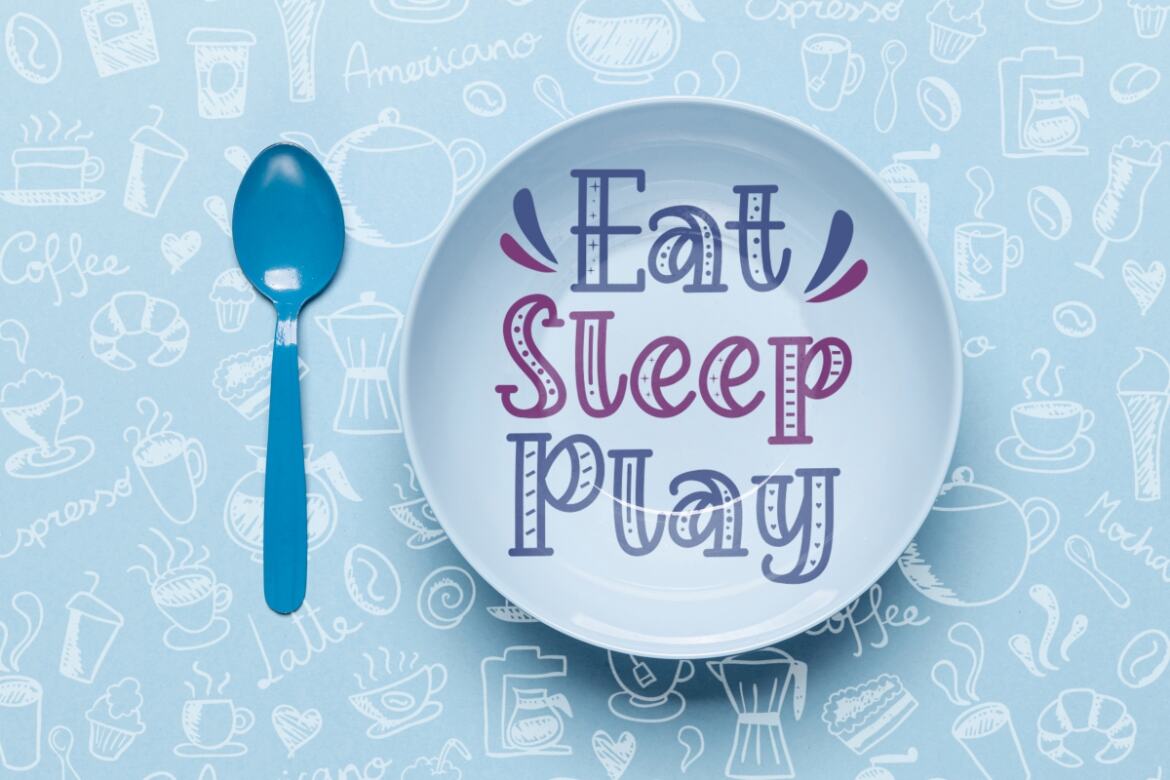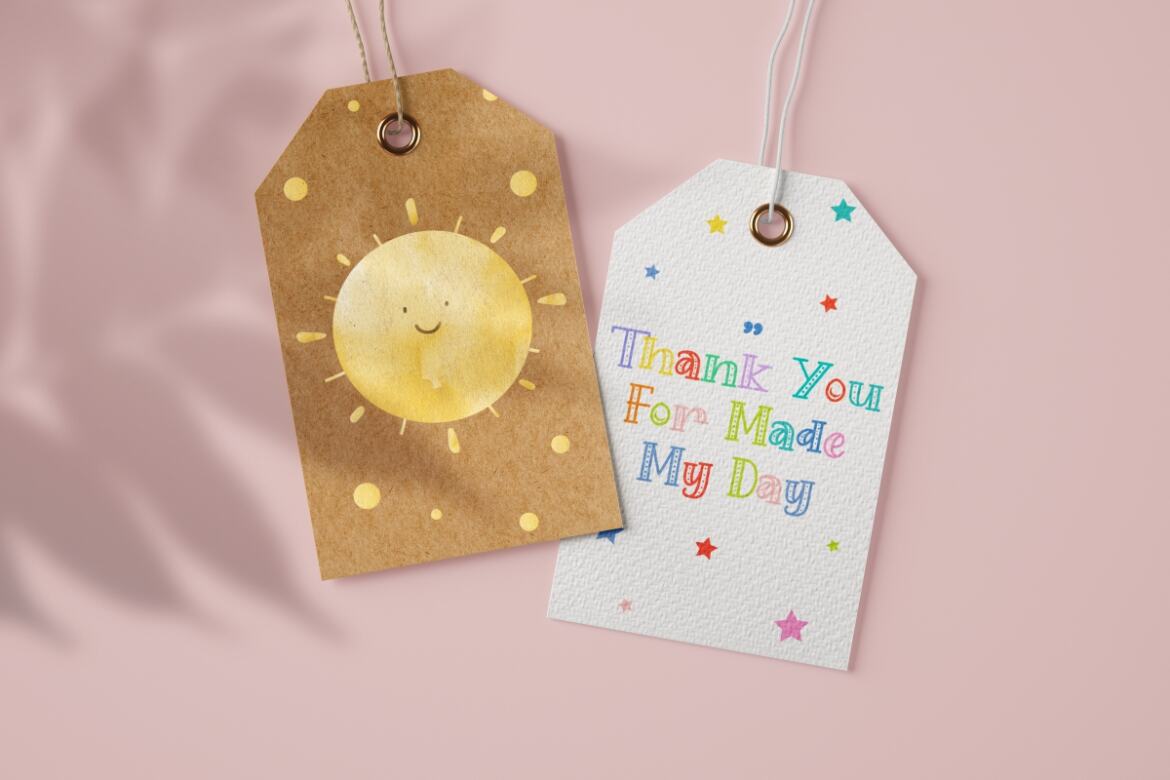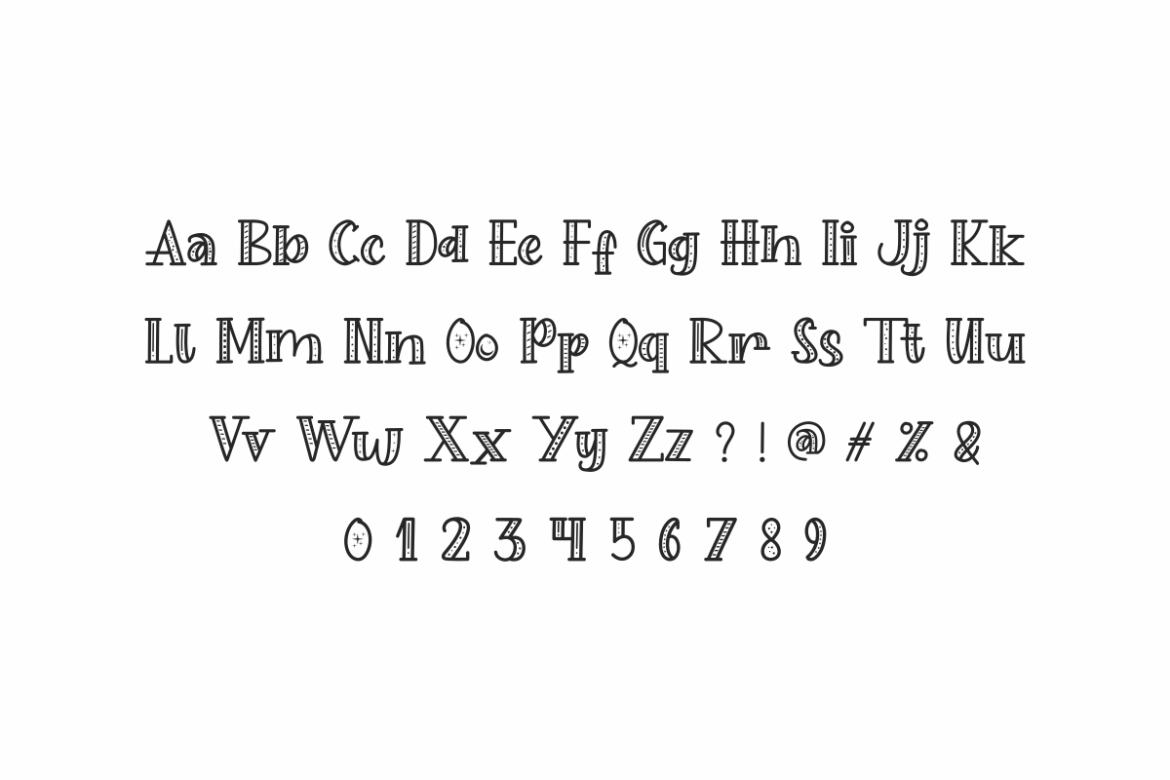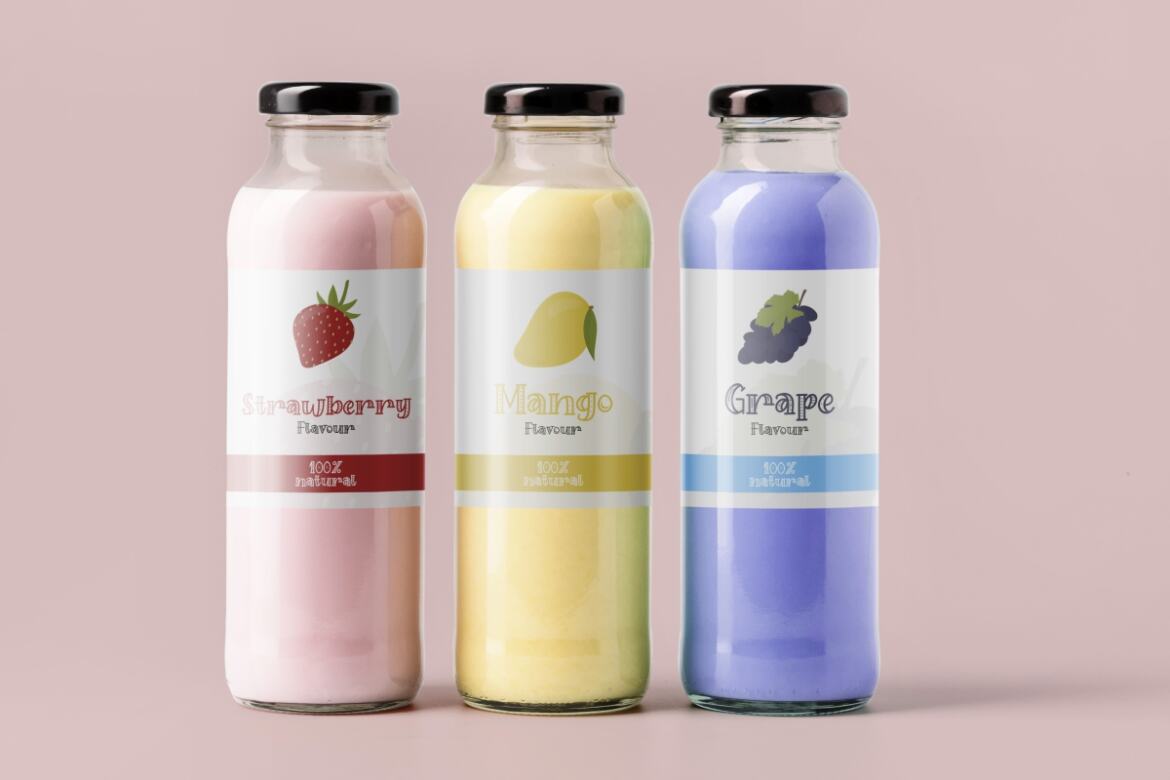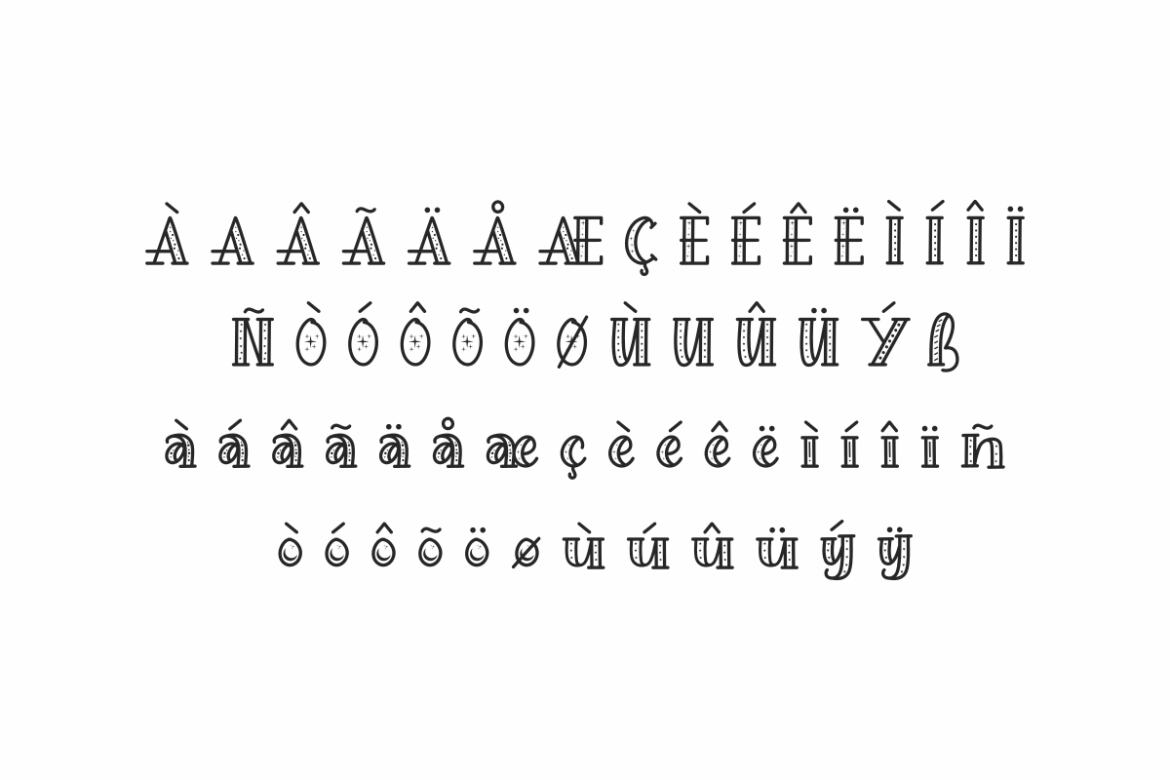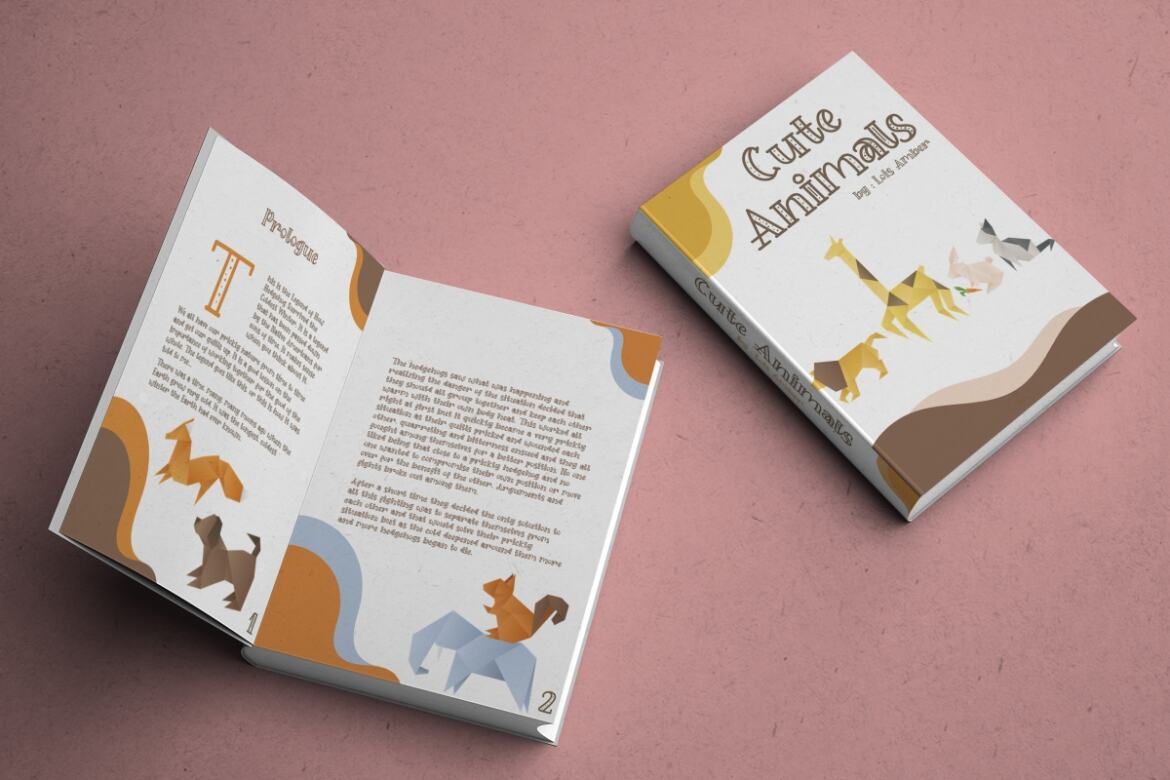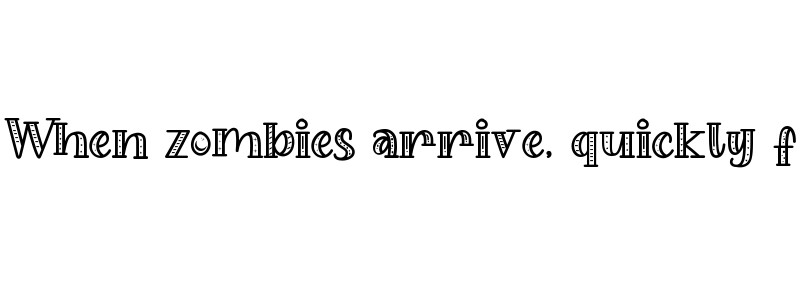
Play Spoon
Handcrafted here in our Studio , Indonesia. Play Spoon Cartoon Font will be great for any projects (require extended license) including : branding, logo, stationery, business card, signage, flyer, brochure etc. Play Spoon Font had been tested Work on PC & Mac. This font has a stunning characters set, perfectly managed with well spaced and kerning.  Accessible in the Adobe Illustrator, Adobe Photoshop, Adobe InDesign, even work on Microsoft Word. It’s also PUA Encoded Characters – Fully accessible without additional design software.